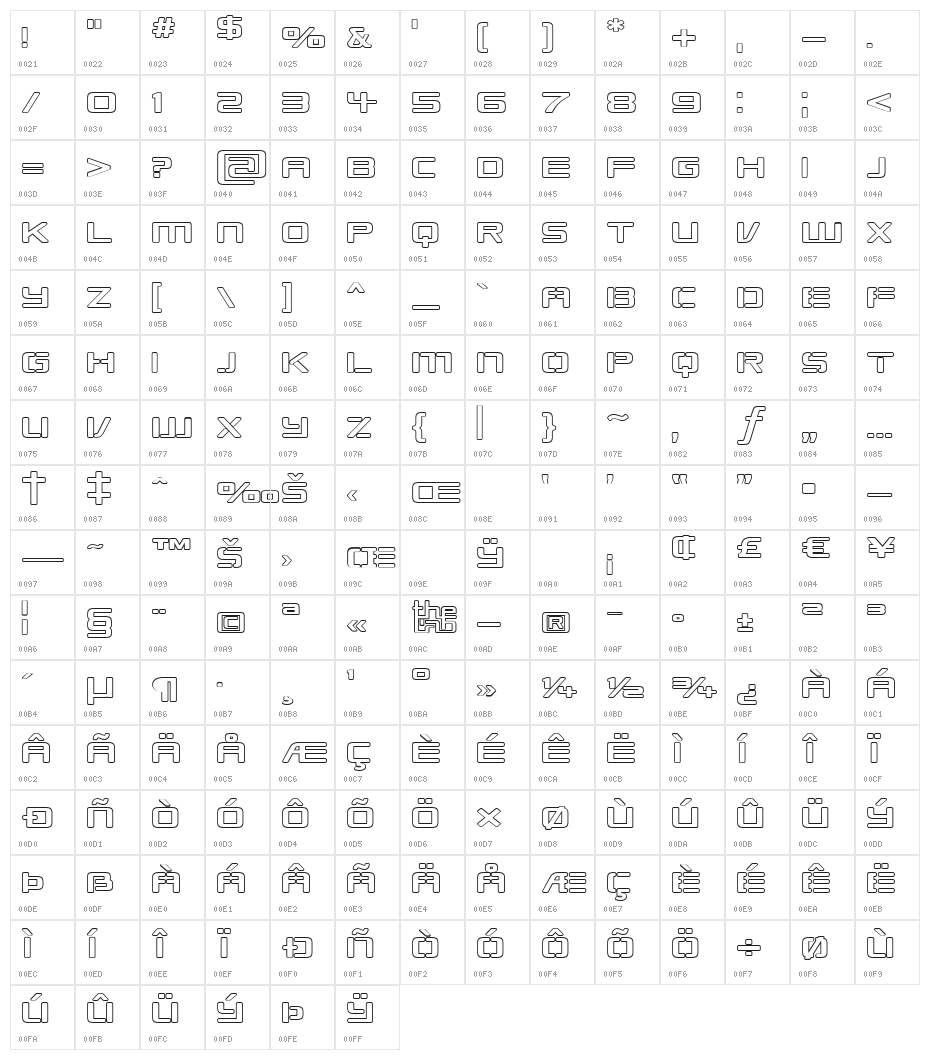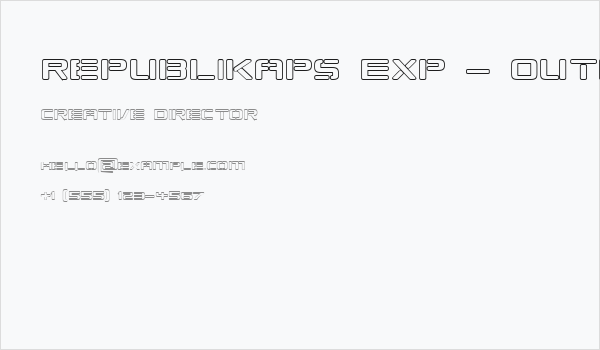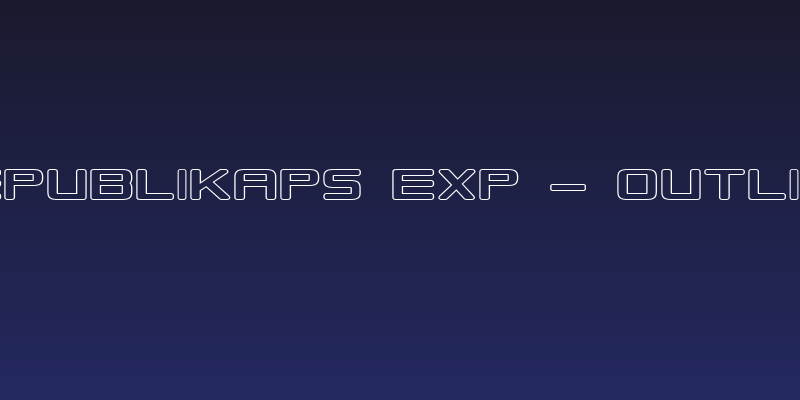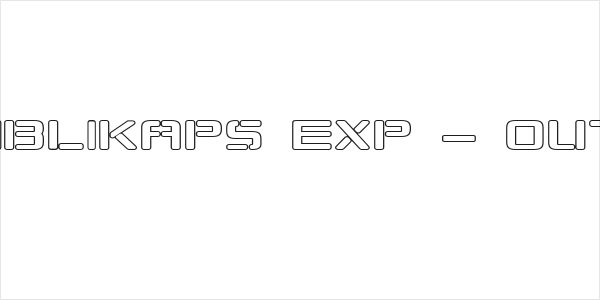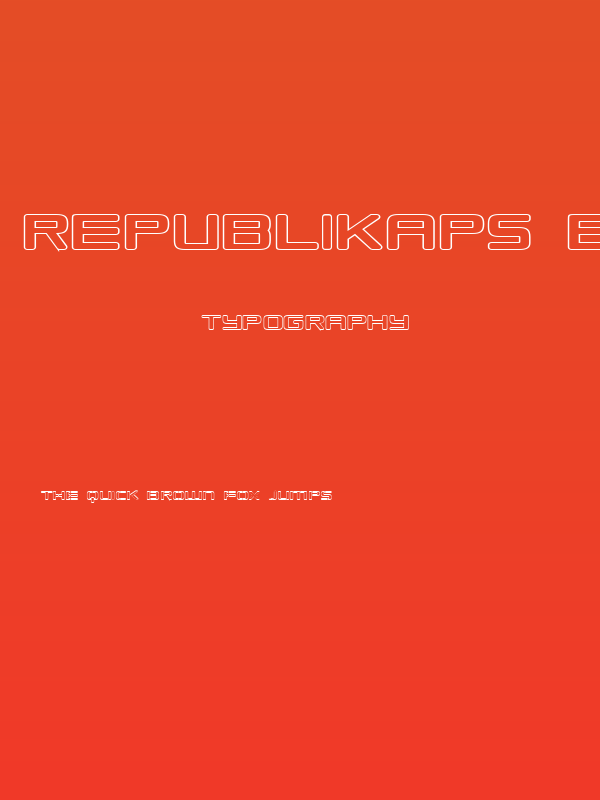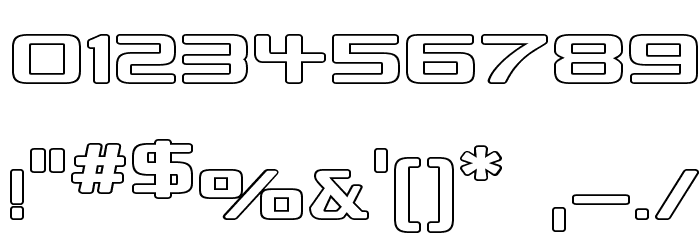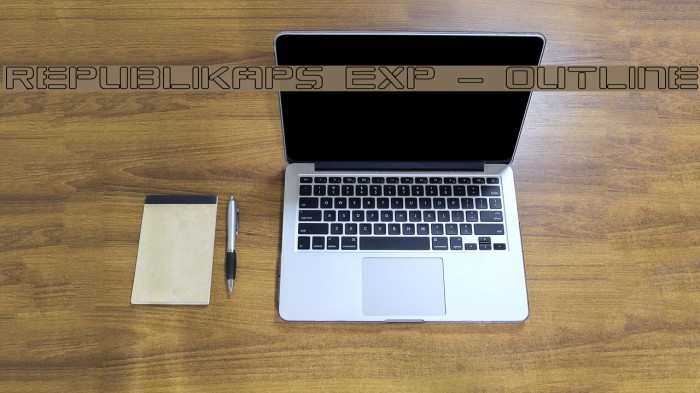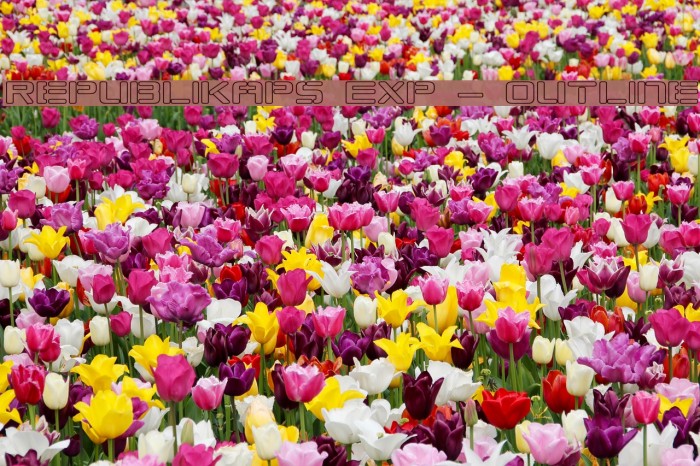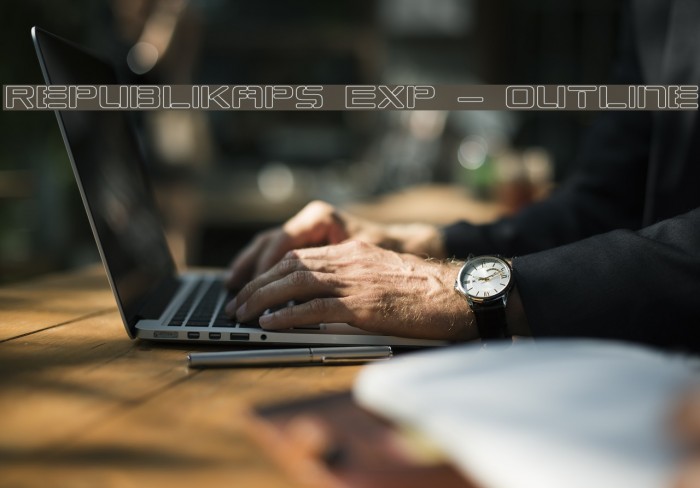
Republikaps Exp - Outline Font
Republikaps Exp - Outline Description
This font features a modern, geometric outline style with clean, uniform lines. The characters are constructed with a consistent stroke width, creating a cohesive and structured appearance. The uppercase and lowercase letters maintain a similar height, enhancing readability while retaining a unique, futuristic aesthetic. The numerals and special characters are designed to match the overall style, ensuring harmony across all elements. This font's outline design gives it a lightweight and airy feel, making it suitable for various creative applications.
| Proposed Projects | Ideal for branding, posters, digital artwork, and futuristic-themed designs. |